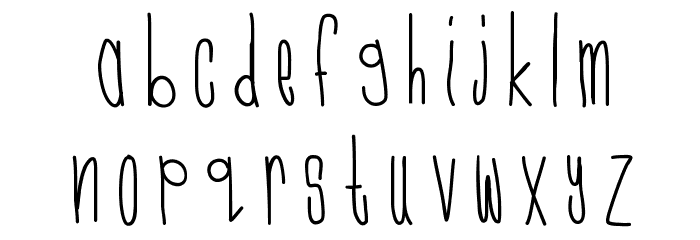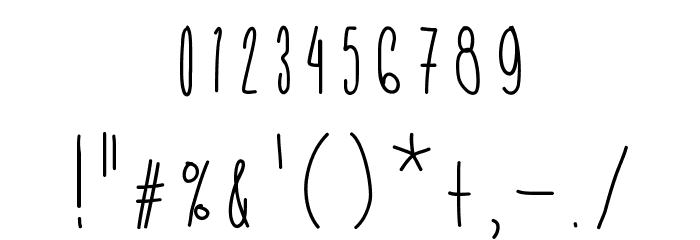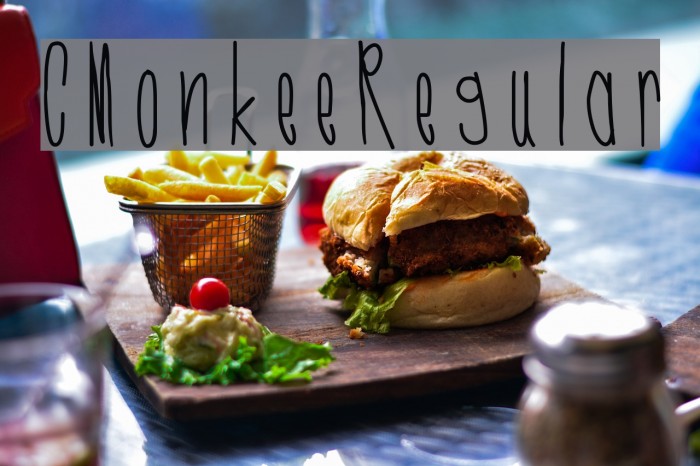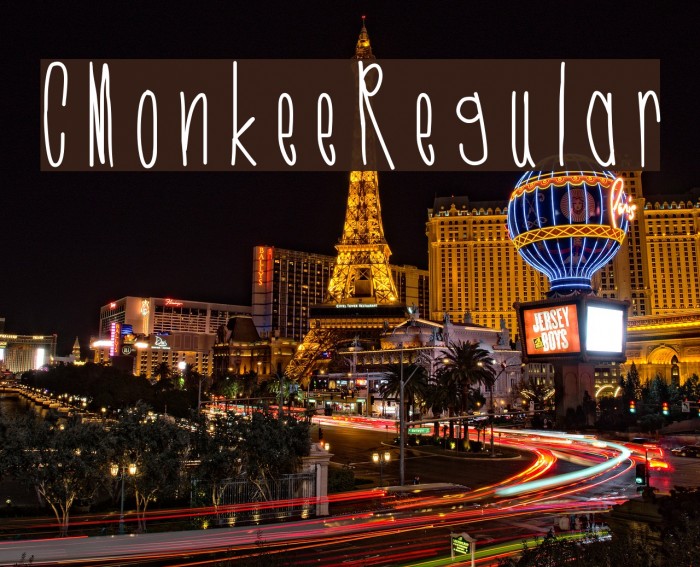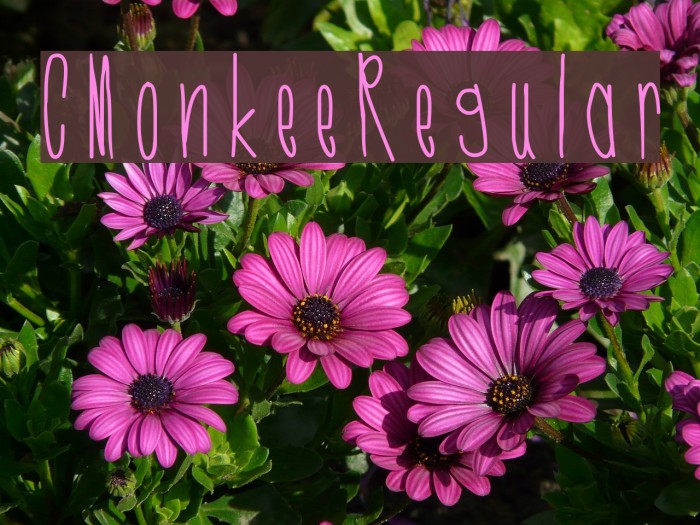
CMonkeeRegular Font
This font features a playful and quirky design with tall, narrow characters that give it a unique and whimsical appearance. The strokes are uneven, adding a hand-drawn feel, while the overall structure remains legible and clear. The uppercase letters are particularly elongated, creating a distinctive look that stands out. The lowercase letters maintain a similar style, with rounded edges and a slightly irregular baseline, enhancing the casual and informal vibe. Numbers and special characters are consistent with this style, making it suitable for creative and artistic projects.
A playful, hand-drawn font with tall, narrow characters and a whimsical style.
- Proposed Projects: Ideal for children's books, greeting cards, playful branding, and creative posters.